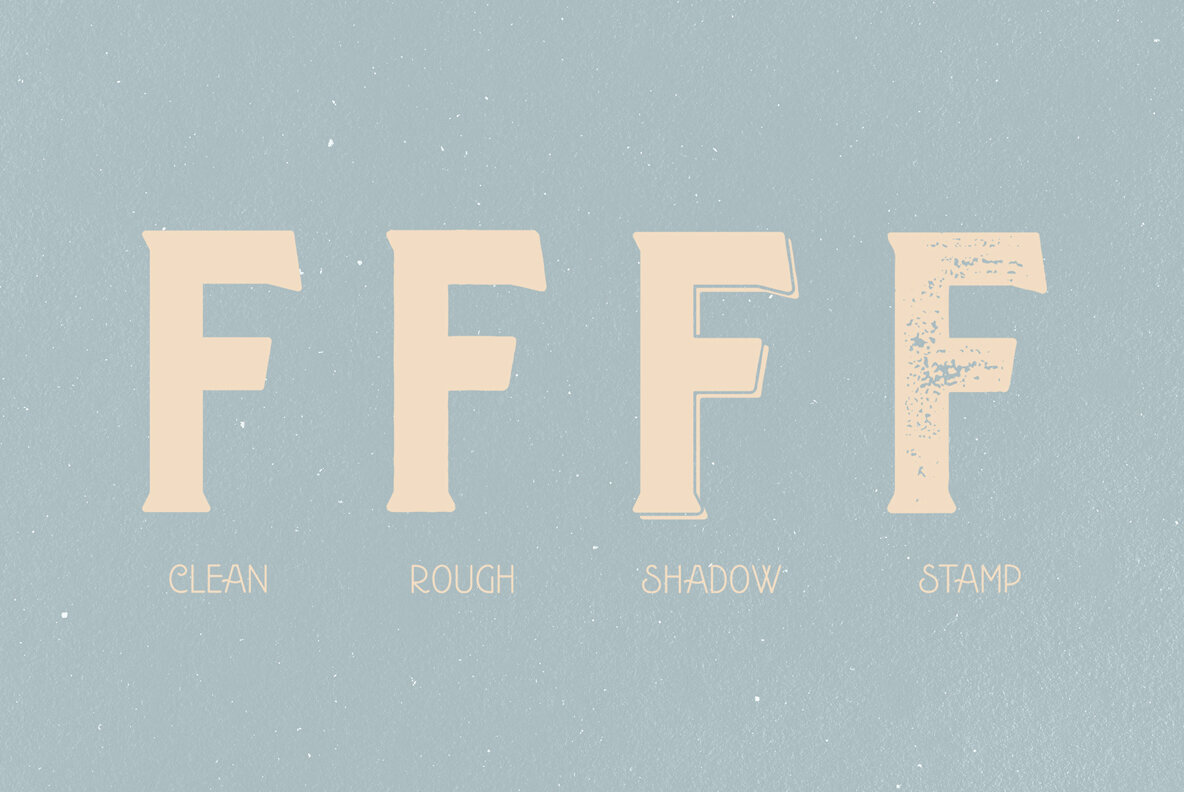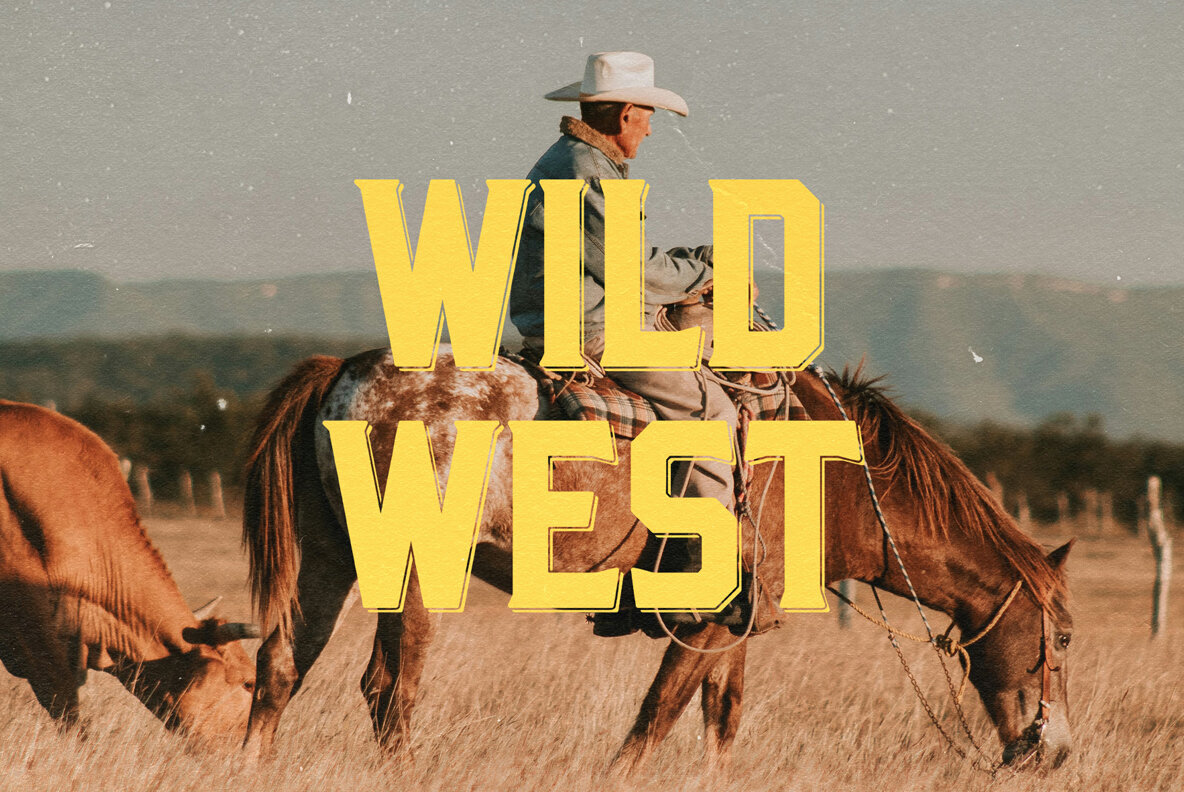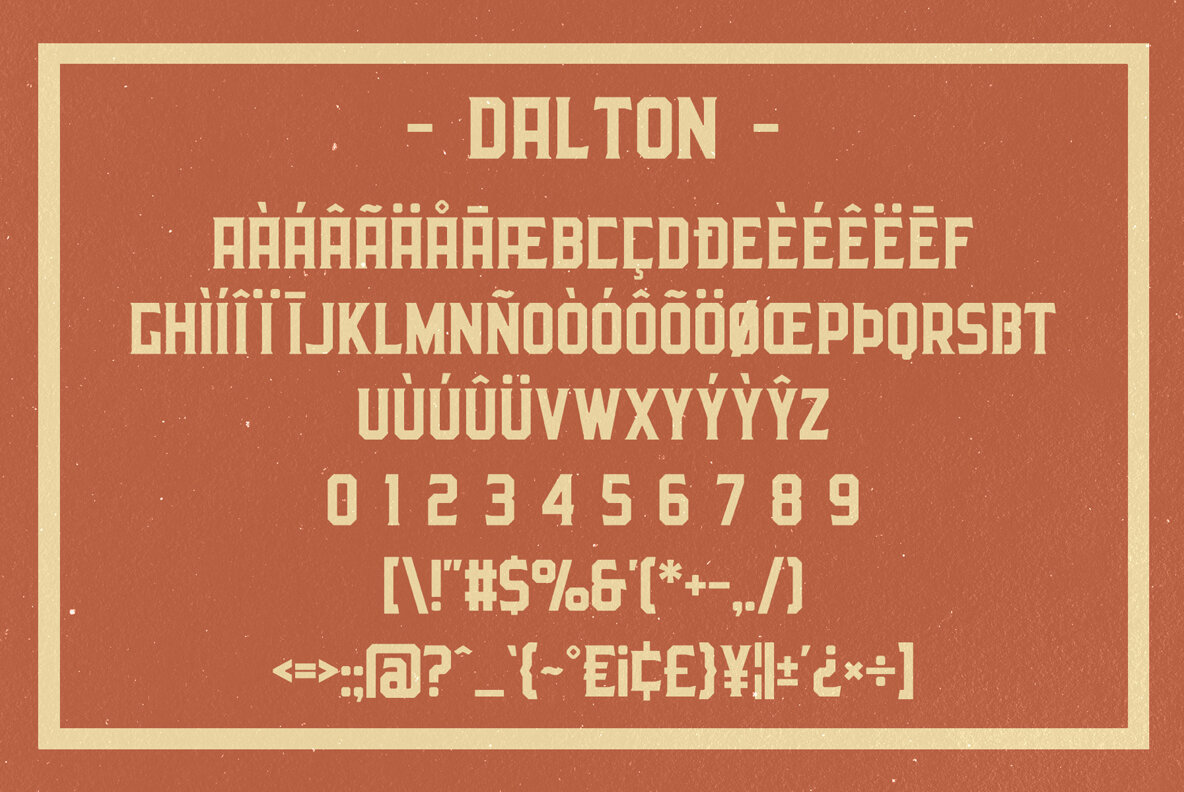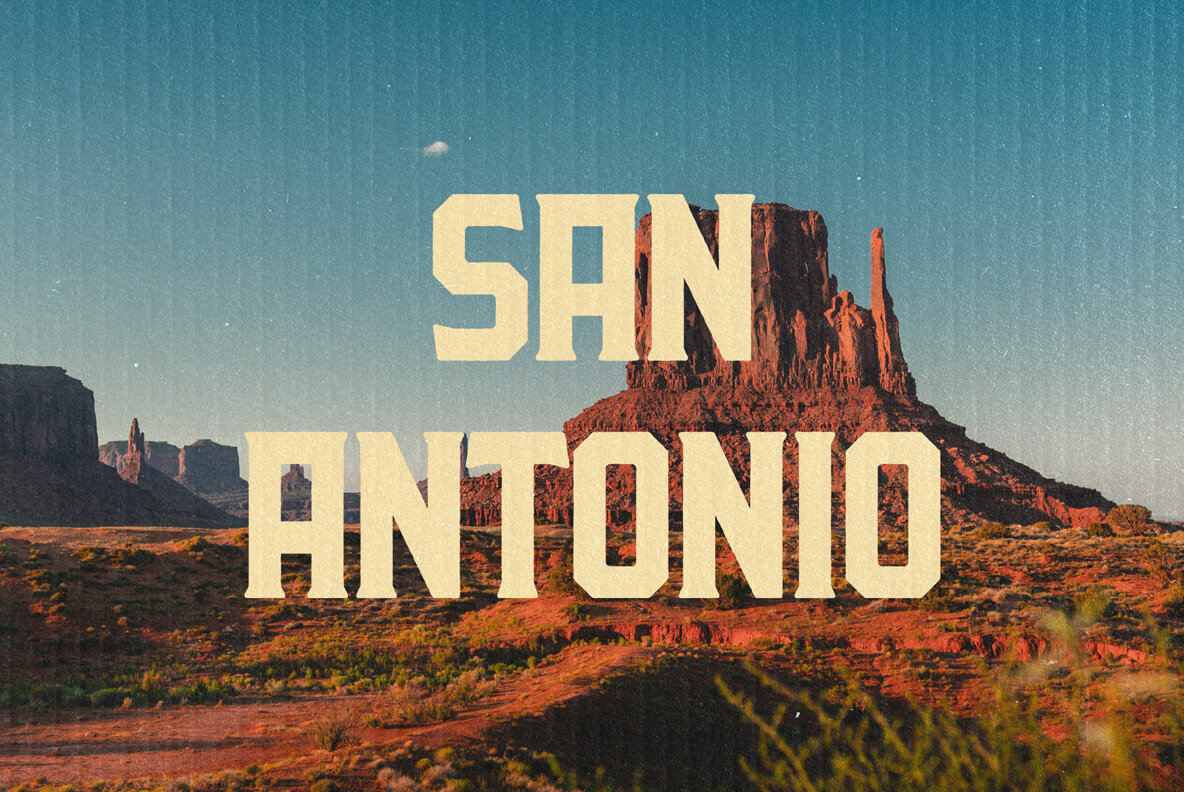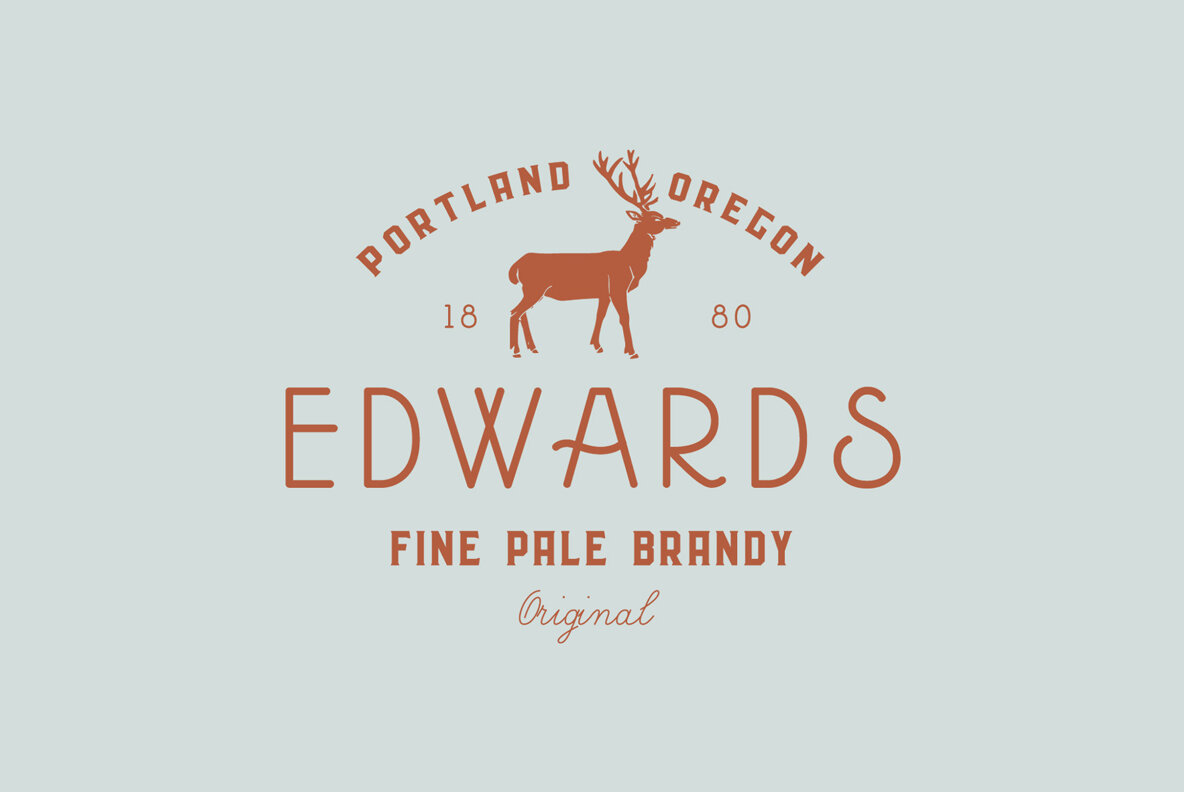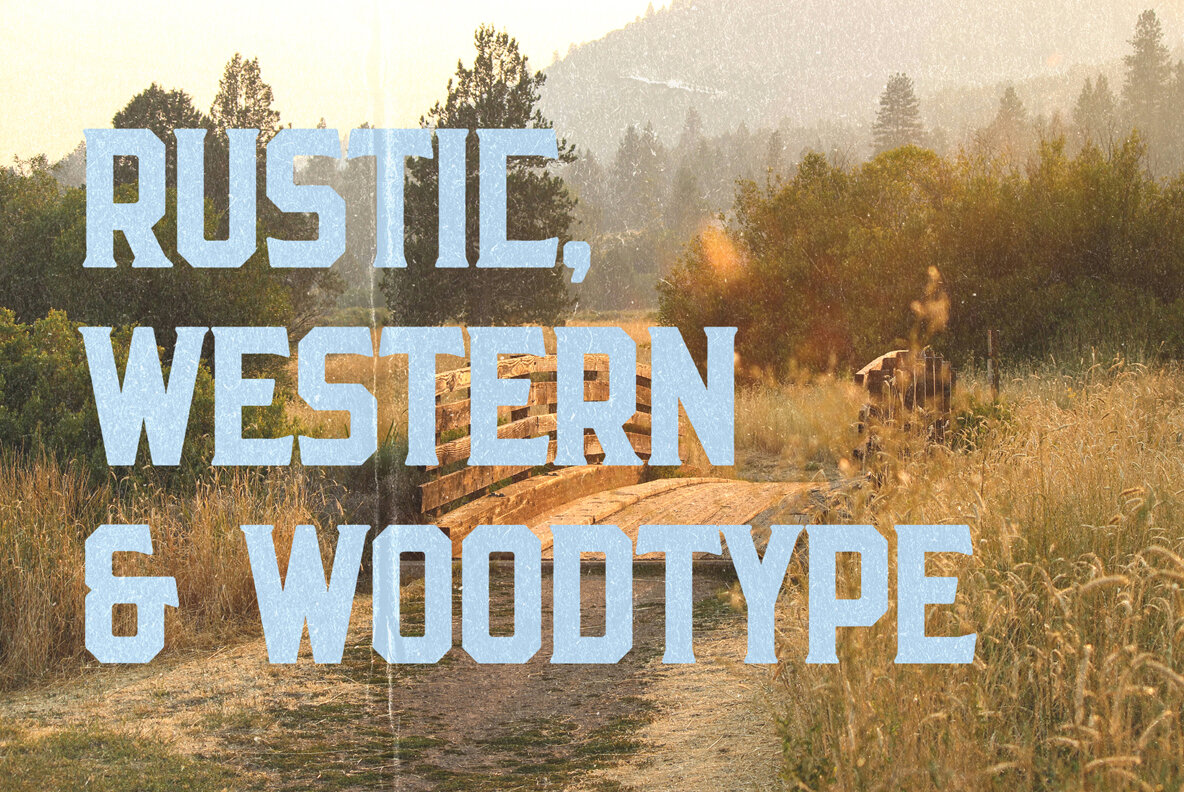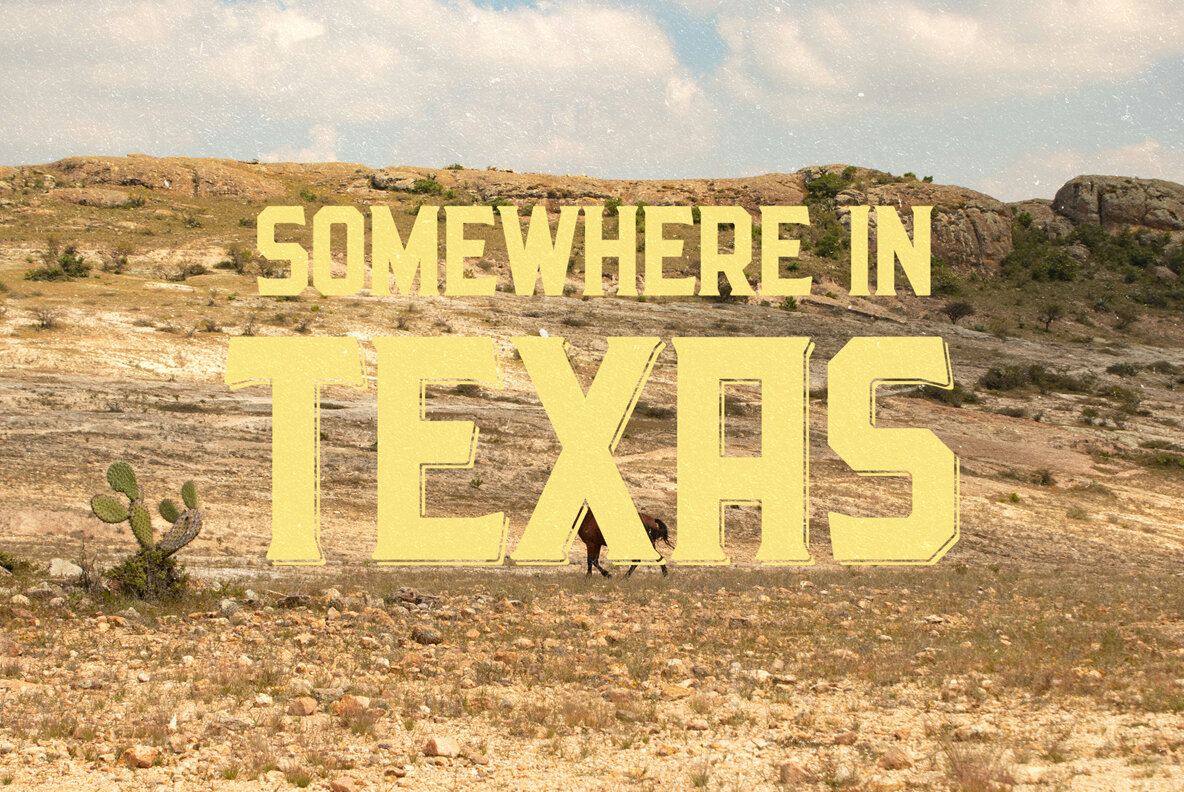
Dalton Font
Dalton Clean
Dalton Rough
Dalton Shadow
Dalton Stamp
Dalton is a display font inspired by old western wooden types. Dalton is cool to mix with other fonts for great brandings, labels, letterings, logos and more.